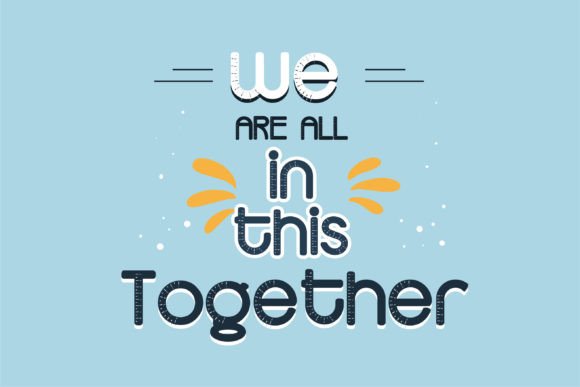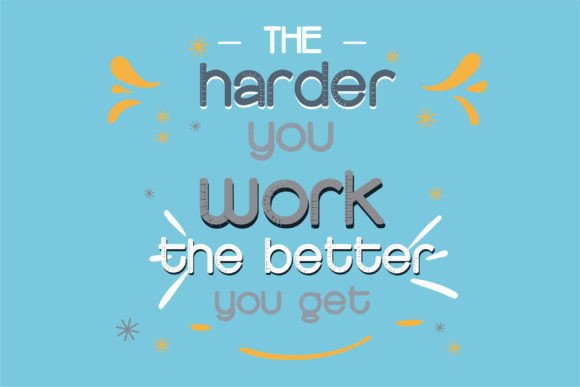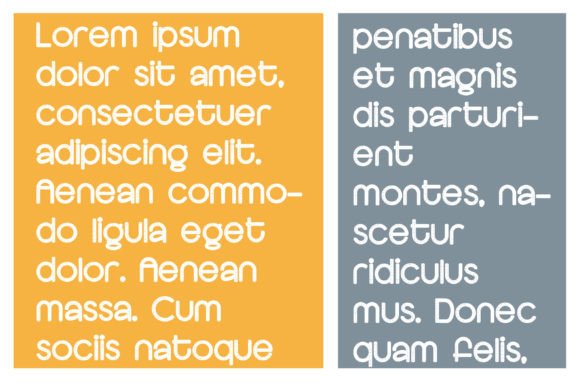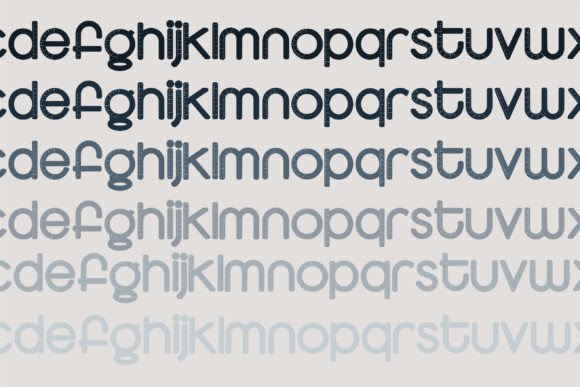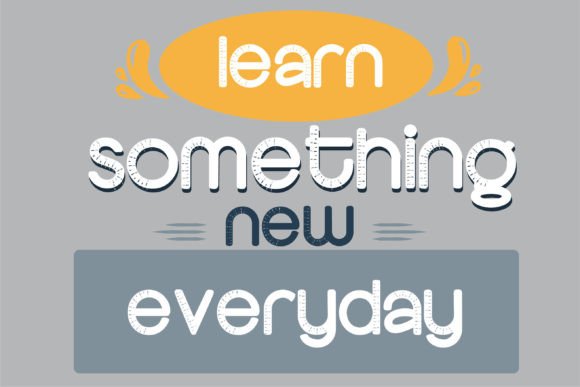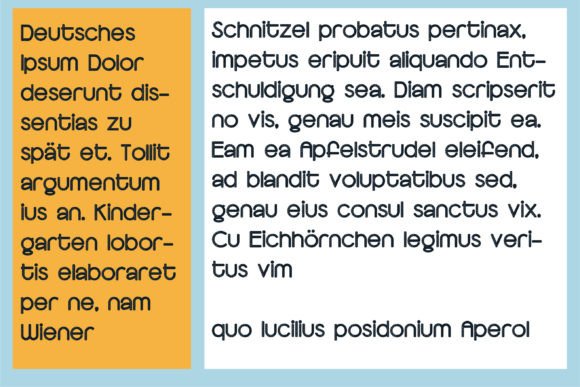
Introduction to Roxy Ruler Font
Roxy Ruler is a fun and quirky sans serif font that features rulers on each letter.
Add it to your creative projects and make them outstanding .
Key Features of Roxy Ruler Font
Why Choose Roxy Ruler Font?
Roxy Ruler Font offers exceptional quality and versatility, making it a valuable addition to your design toolkit. Whether you’re creating for personal projects or commercial use, Roxy Ruler Font delivers professional results.